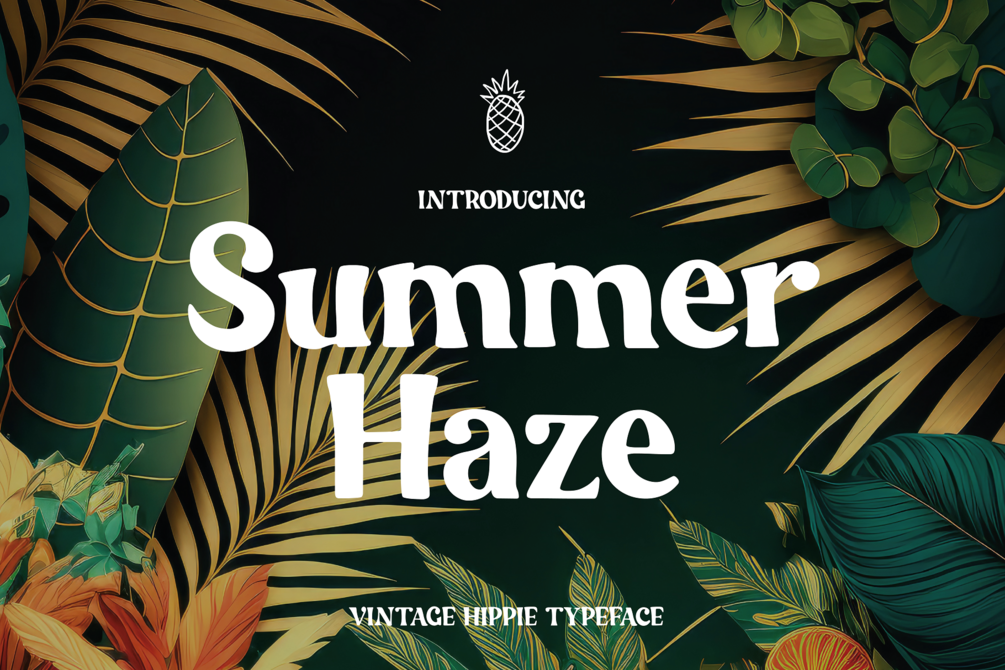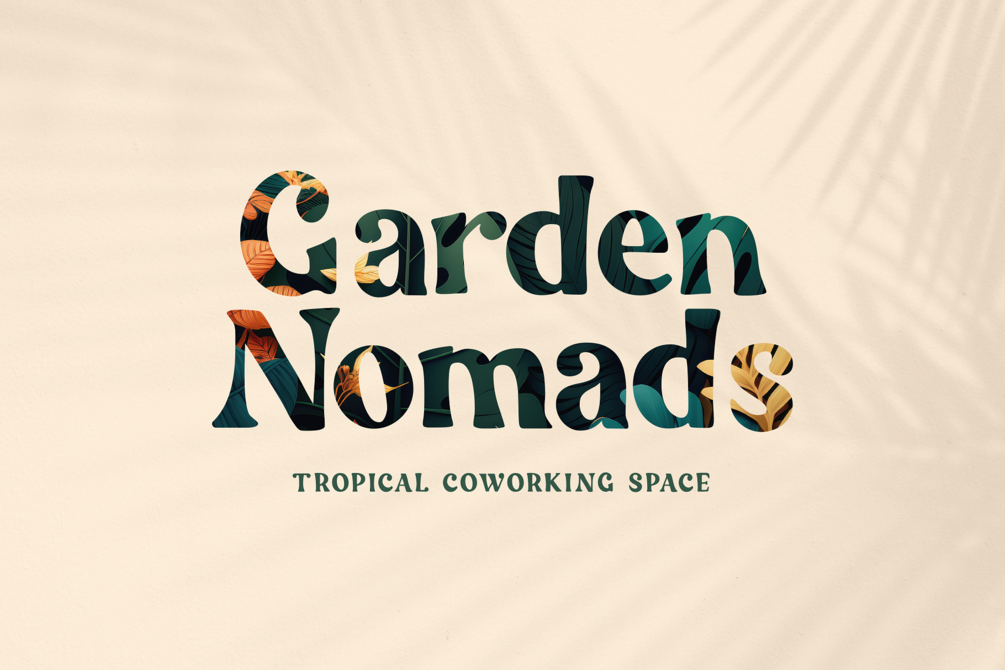
Summer Haze - Hippie Typeface
Get ready to embark on a groovy design journey that's as natural as a warm summer's day! Summer Haze, our organic Hippie Typeface, is here to transport you to a world of free-spirited creativity, where each letter is a canvas for your artistic expression.
Summer Haze isn't just a typeface; it's a portal to a bygone era of peace, love, and unbridled creativity. It's your secret sauce to crafting designs that are not just visual but soulful experiences. Elevate your projects, captivate your audience, and embrace the Summer Haze typeface that's rewriting the rules of design.